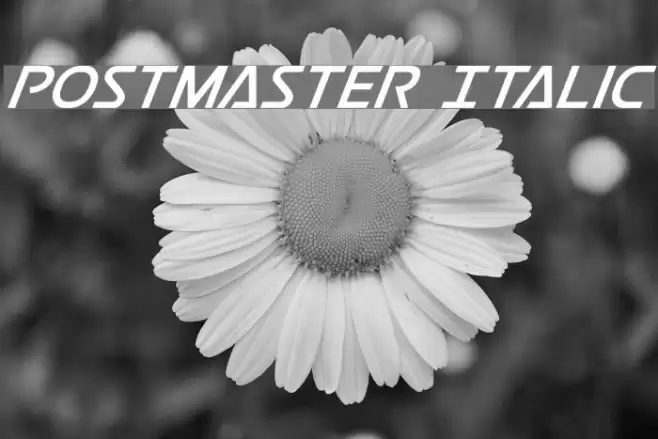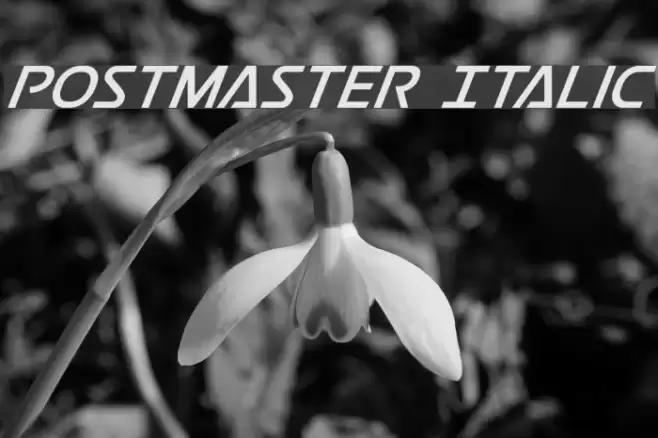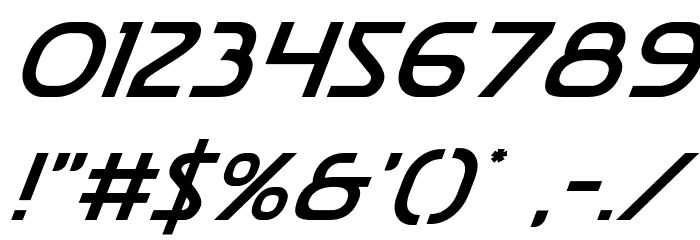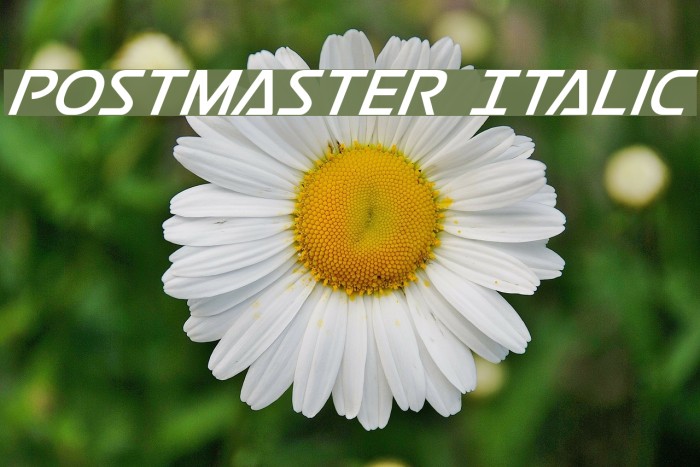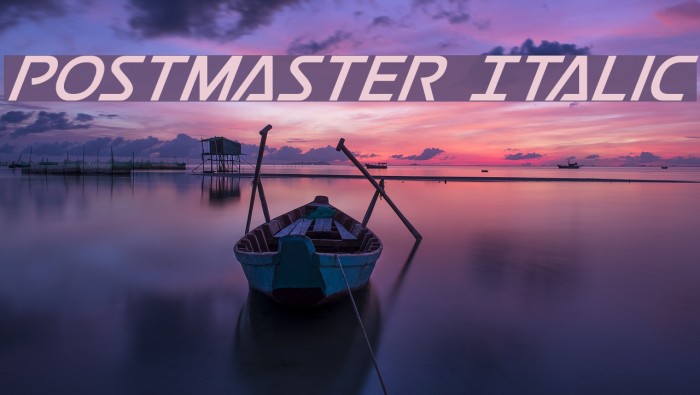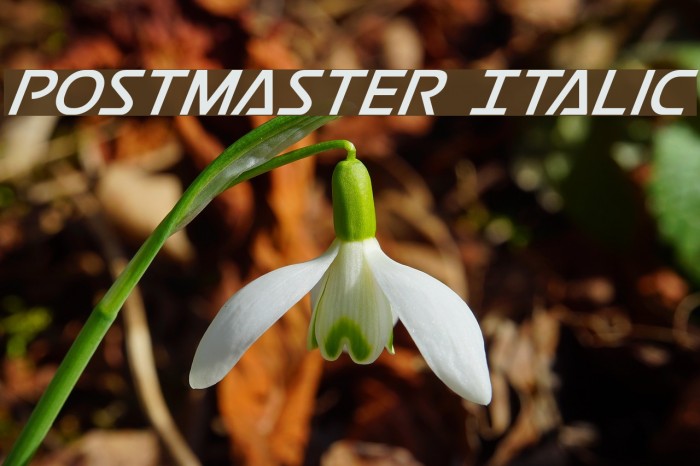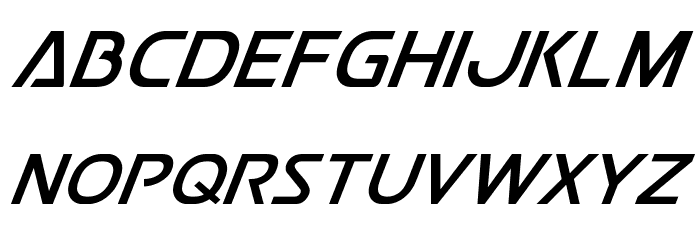
Postmaster Italic
This font features a sleek, italicized design that emphasizes a sense of motion and modernity. The characters are slightly slanted, giving a dynamic and forward-moving appearance. The strokes are clean and consistent, with a medium contrast that balances readability with style. The overall look is streamlined and professional, making it suitable for various contemporary applications. The numerals and special characters maintain the same italicized style, ensuring uniformity across all text elements.
A sleek, italicized font with a modern and dynamic appearance.
- Proposed Projects: Ideal for branding, advertising, and editorial design projects that require a modern and dynamic touch.
- Use Case: Headlines, Logos, Branding